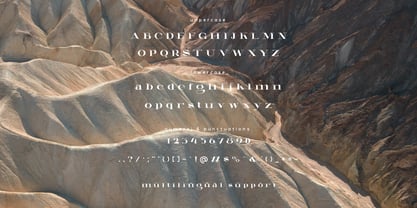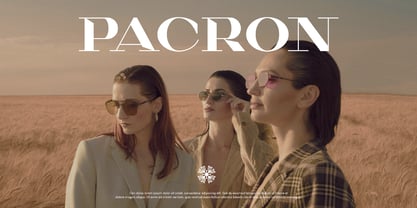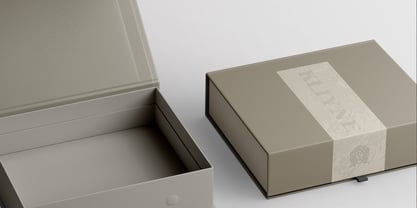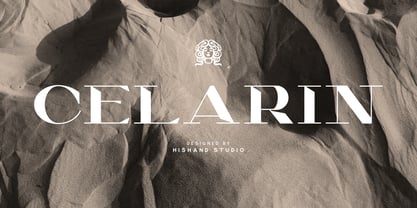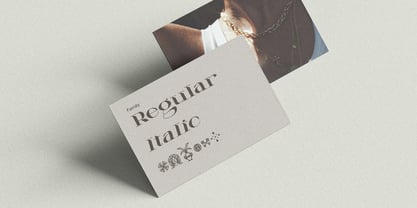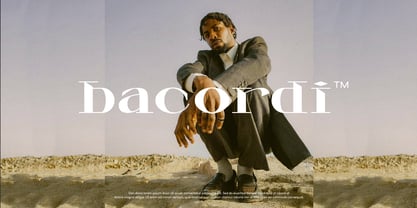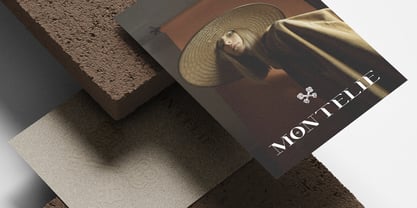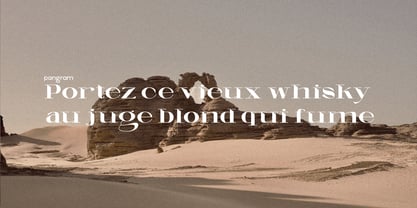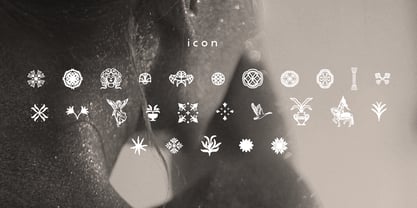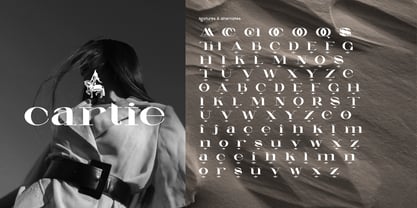
Celarin
The Celarin Font Family was designed by Putu Dody Permana and published by Hishand Studio. Celarin contains 3 styles and family package options. More about this family
Celarin is a bold yet elegant serif font that feels effortlessly stylish. With its sharp lines and high contrast, it strikes the perfect balance between modern sophistication and classic charm. It has a confident presence refined, clean, and just dramatic enough to make a statement. Created by Hishand Studio, Celarin is made for those moments when you want your design to feel polished and high-end, without being too flashy. It’s a great fit for fashion branding, editorial layouts, logos, or anything that needs a touch of luxury and personality.
Complete with
• ligatures
• alternates
• regular
• italic
• icon
• kerning
• multilingual support